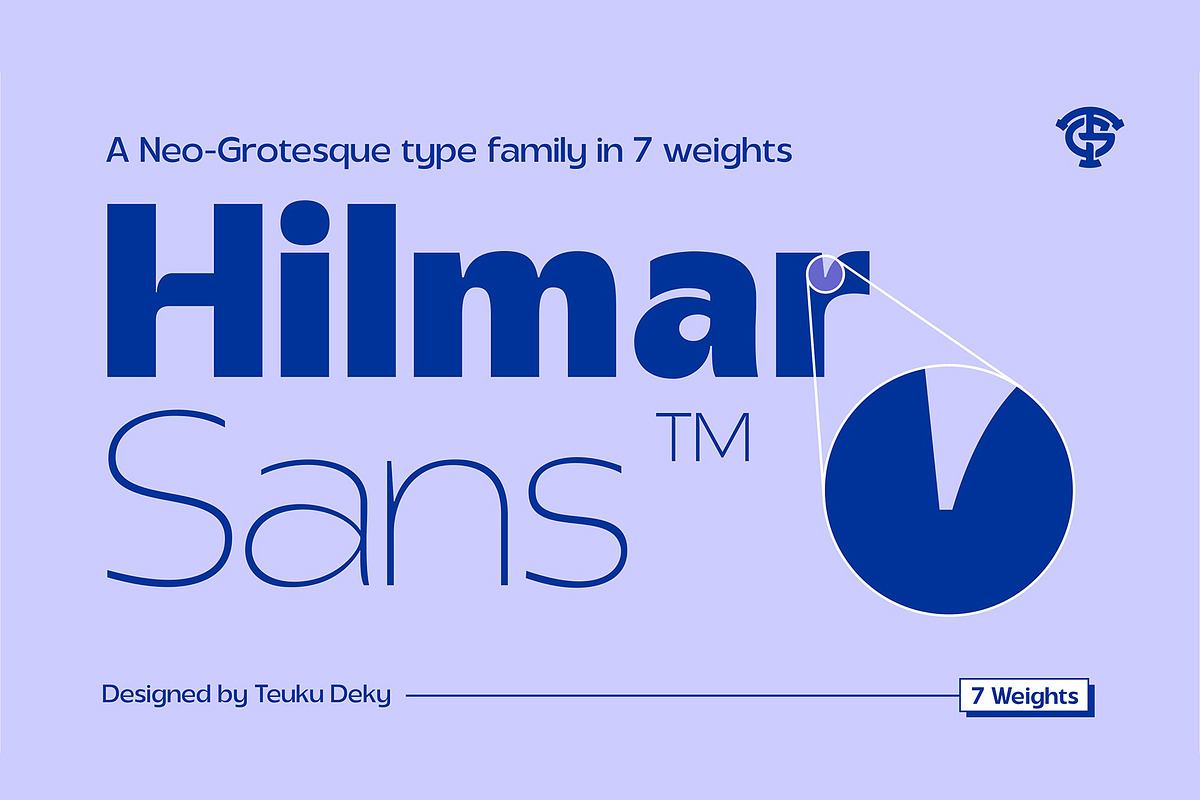
Hilmar Sans Font Free Download is a clean and modern sans-serif typeface that combines simplicity with elegance. With its geometric shapes and balanced proportions, this font is perfect for a wide range of design projects, including websites, branding, logos, editorial layouts, and digital content.
Hilmar Sans offers great versatility, making it suitable for both large headings and smaller body text. Its modern aesthetic and readability make it an ideal choice for minimalistic designs and professional applications.
Add a clean, modern look to your designs with Hilmar Sans Font Free Download, and create typography that is both stylish and functional. Perfect for designers seeking a sophisticated, contemporary sans-serif font.